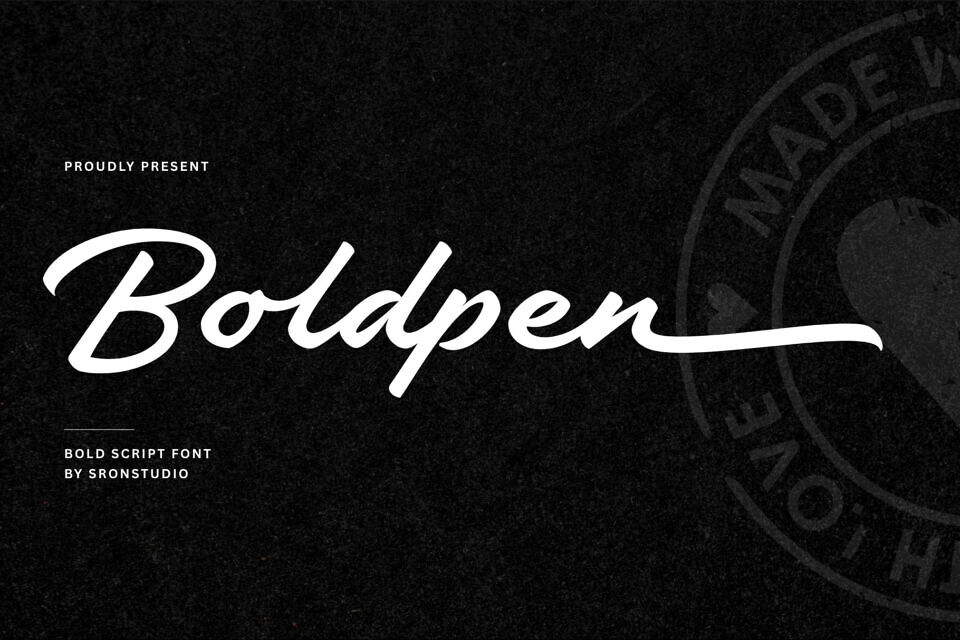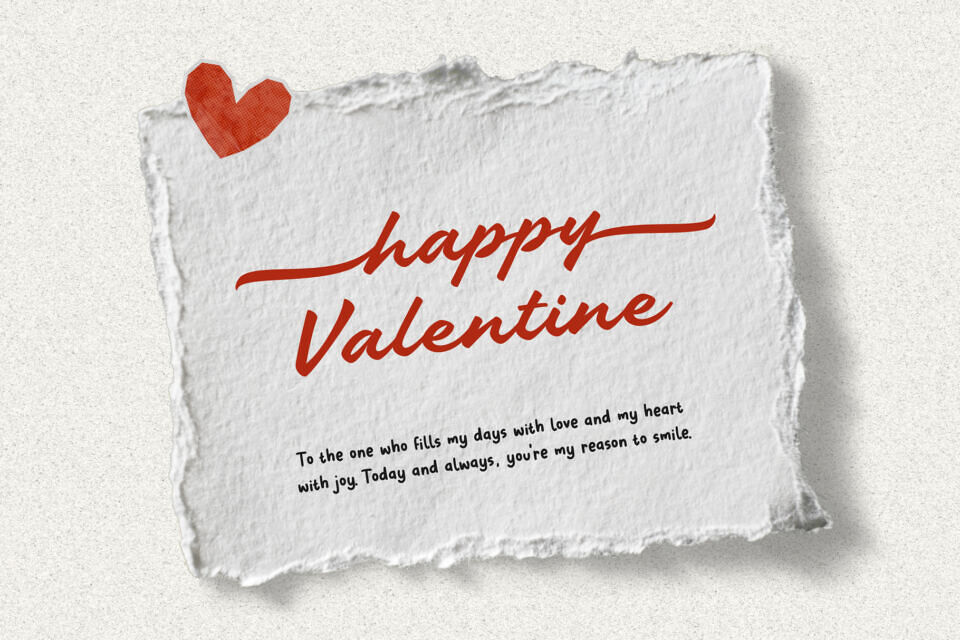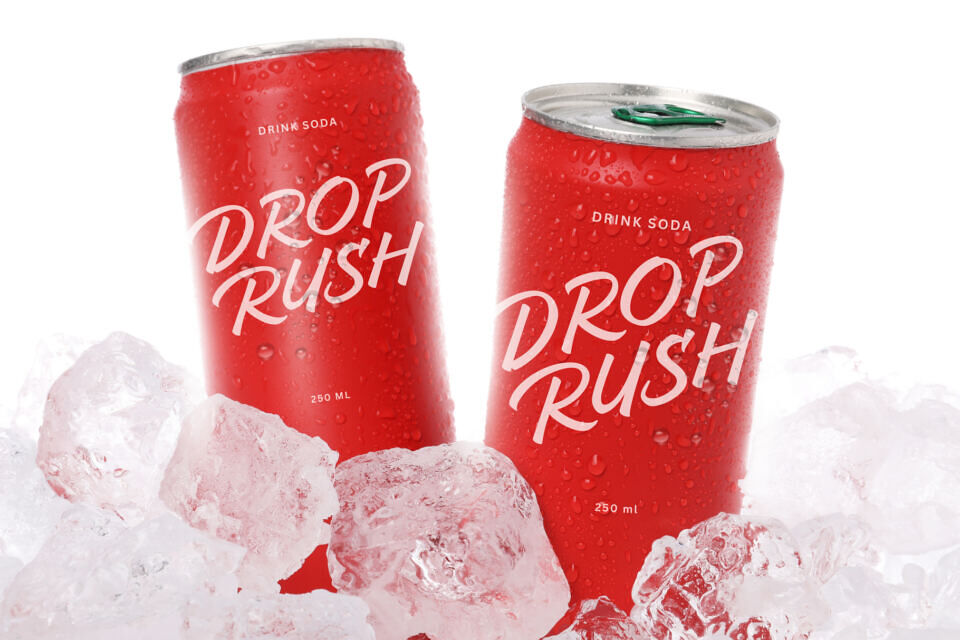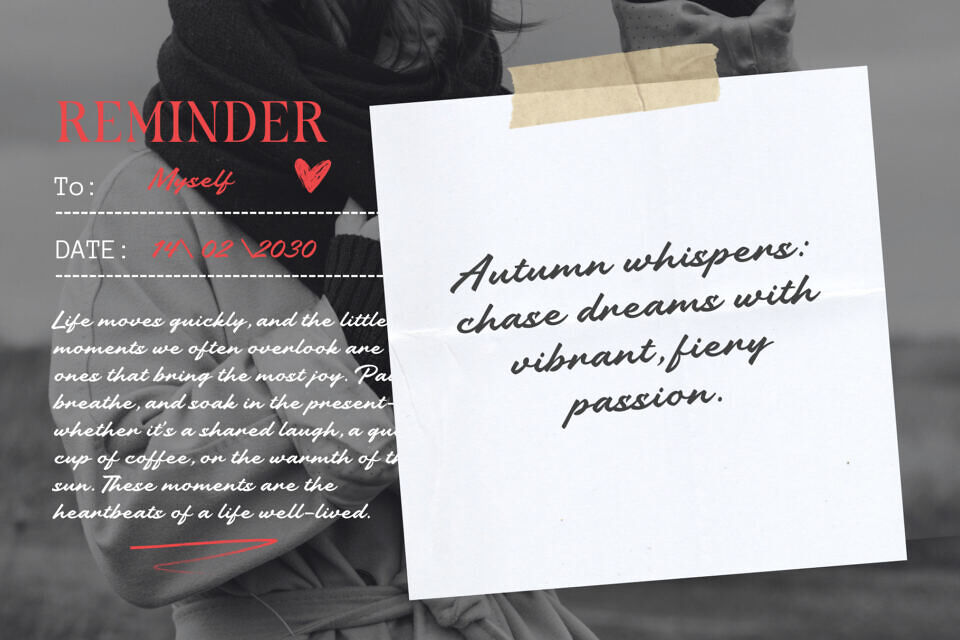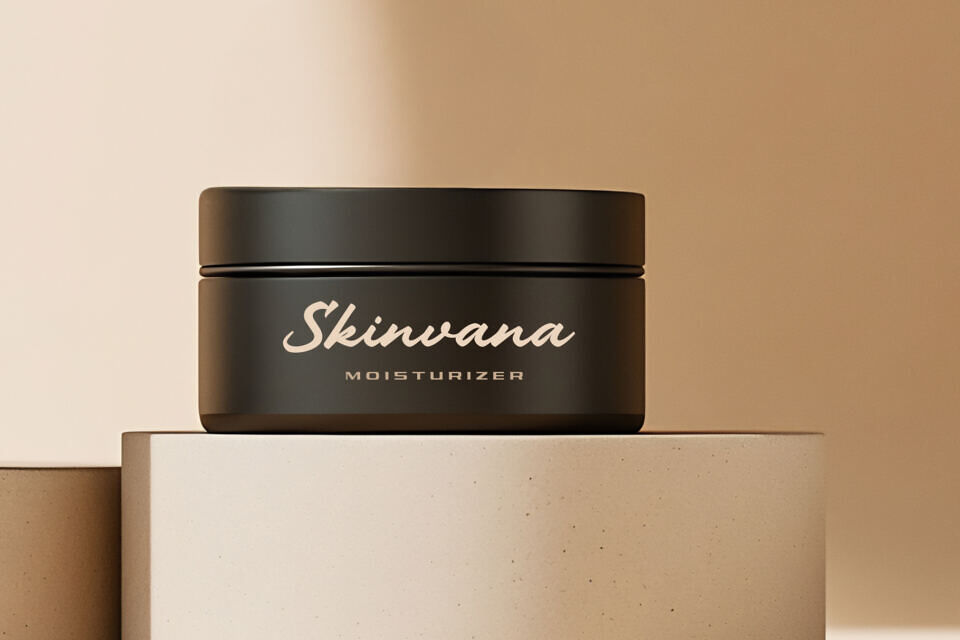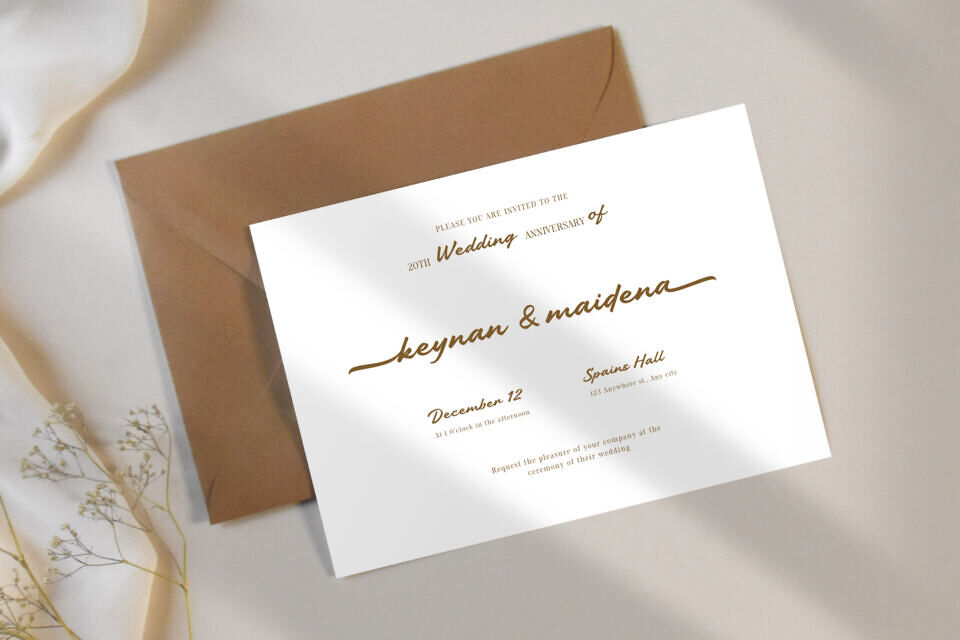
Boldpen Font
Boldpen is a bold script font with strong, confident strokes and a smooth handwritten flow. Designed to stand out, this font brings energy and personality to logos, headlines, posters, packaging, and social media designs.
With its expressive and powerful letterforms, Boldpen is perfect for projects that need a bold, modern, and eye-catching handwritten style.